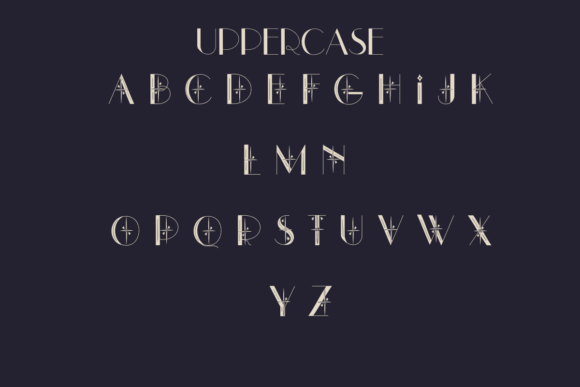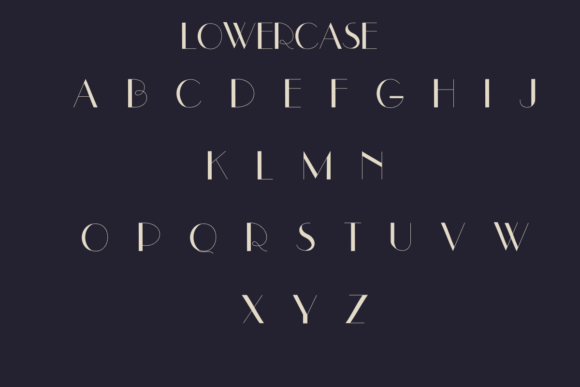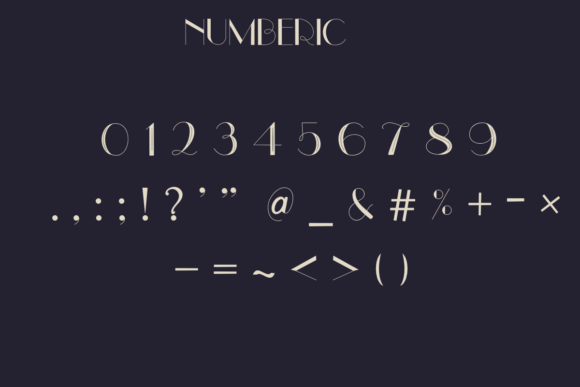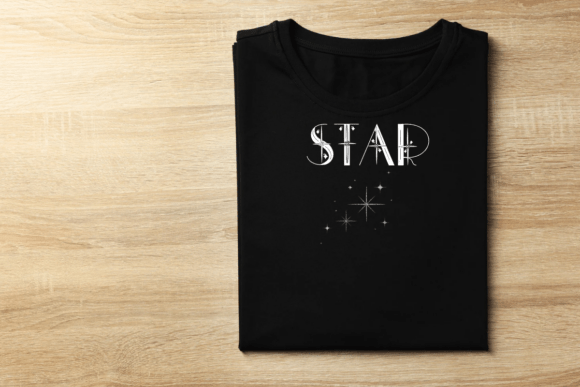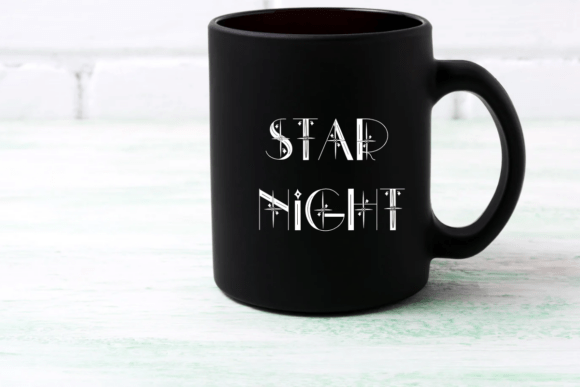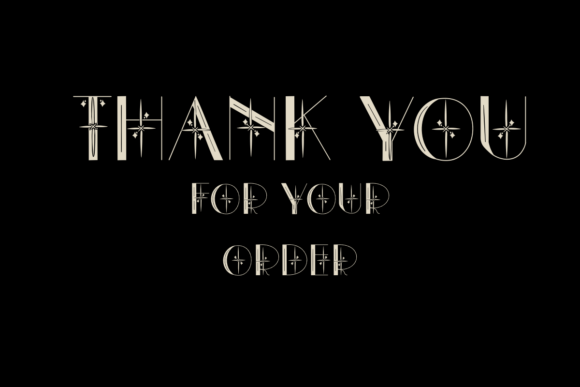
Introduction to Glowing Star Font
Glowing Star is a Decorative font You can use it for taking notes, writing a diary, or making greeting cards.
However, you can still use it for other designs, such as banners, content, mugs, cards, shirts, stationery, social media posts, and more .